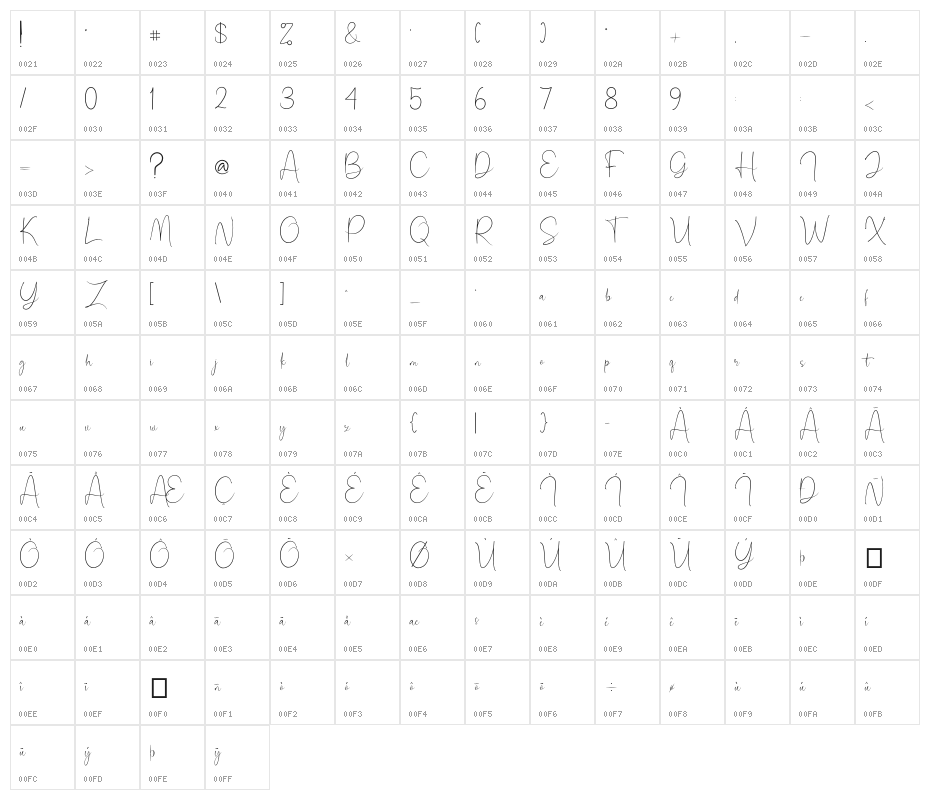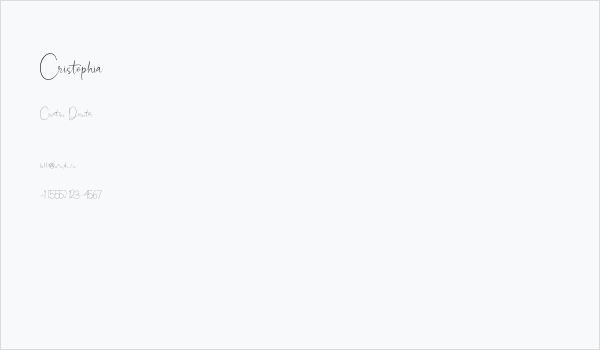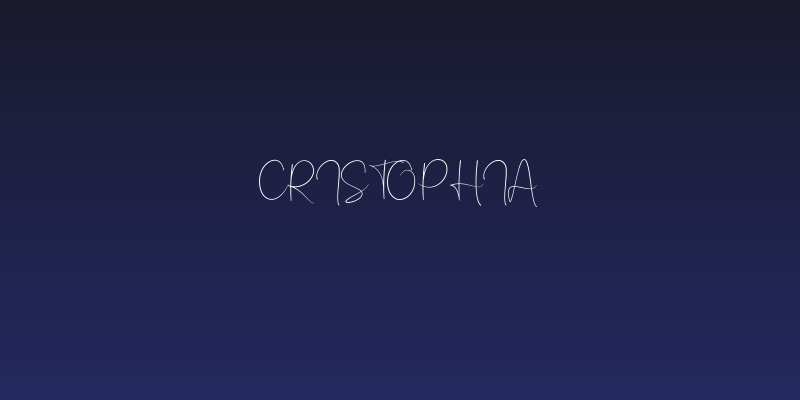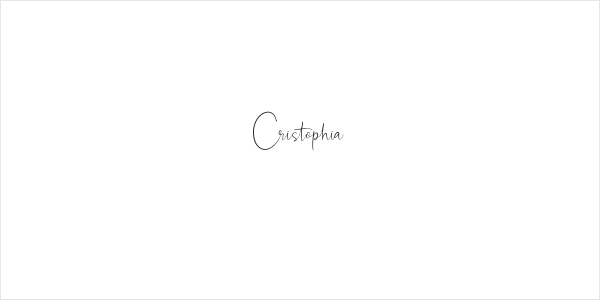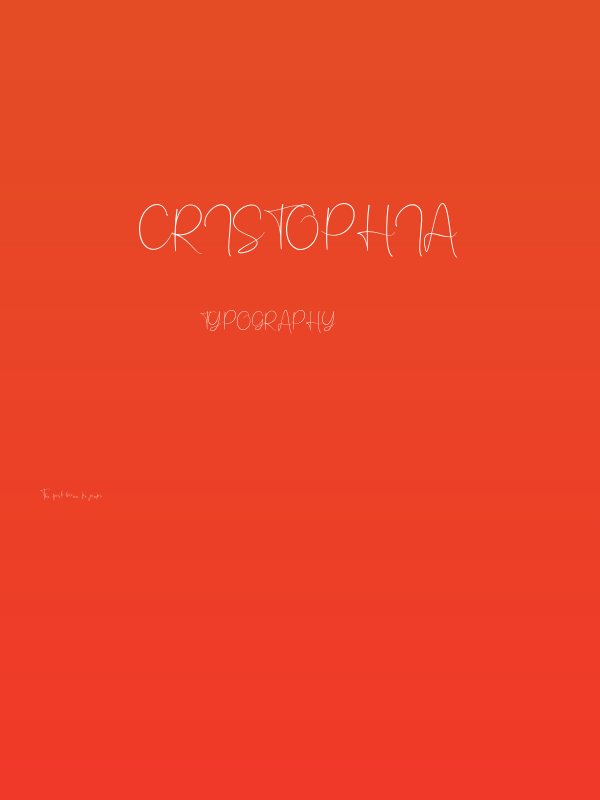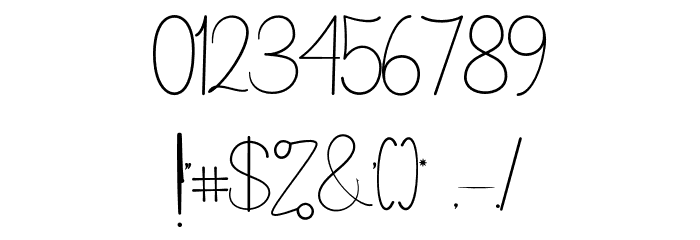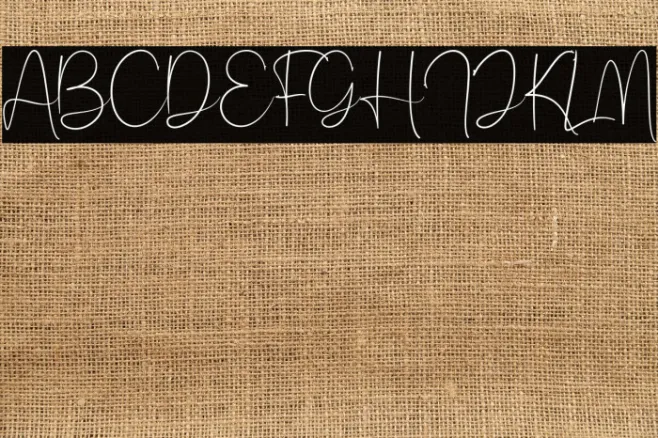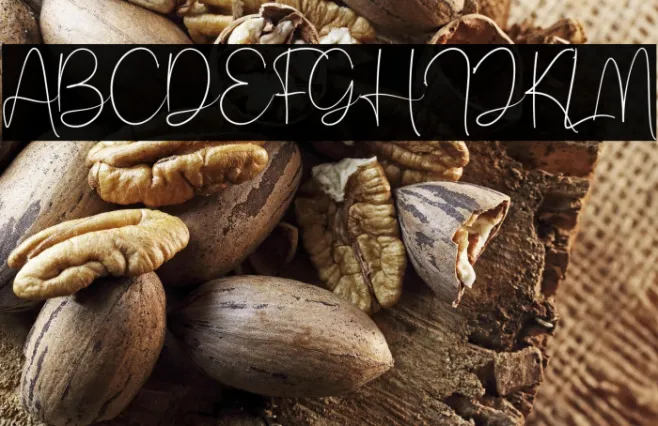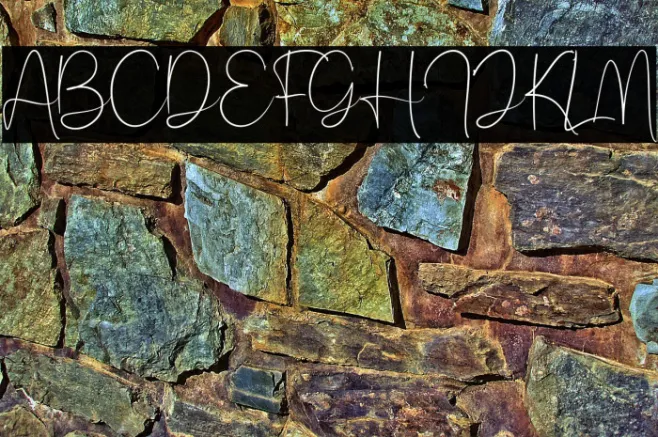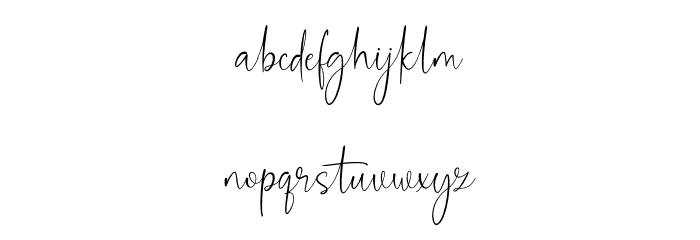
Cristophia Font
Cristophia Description
This font features a delicate and flowing script style, characterized by its elegant and whimsical curves. The uppercase letters are tall and slender, with a playful loop in many of the characters, adding a touch of sophistication. The lowercase letters are more compact, maintaining the same fluidity and grace. Numbers are consistent with the overall style, offering a cohesive look. Special characters are thoughtfully designed to match the aesthetic, making this font versatile for various uses. The overall impression is one of elegance and charm, suitable for projects that require a personal and artistic touch.